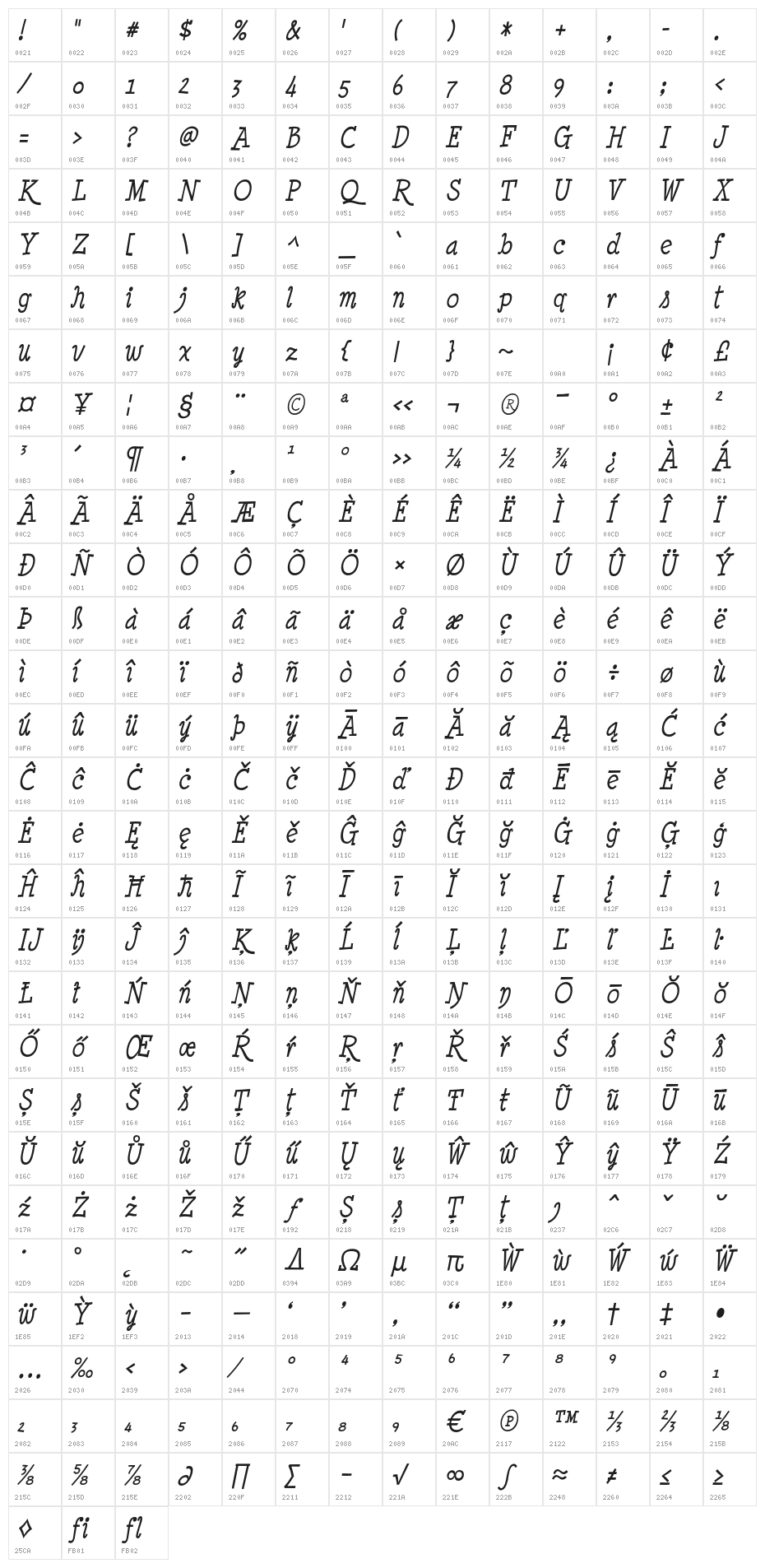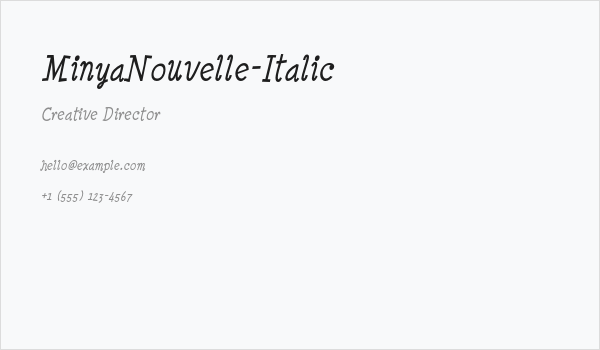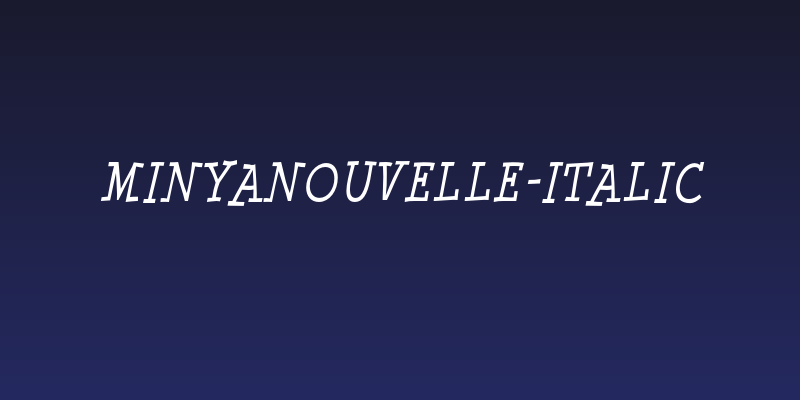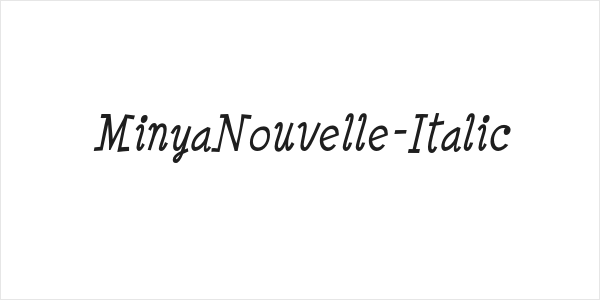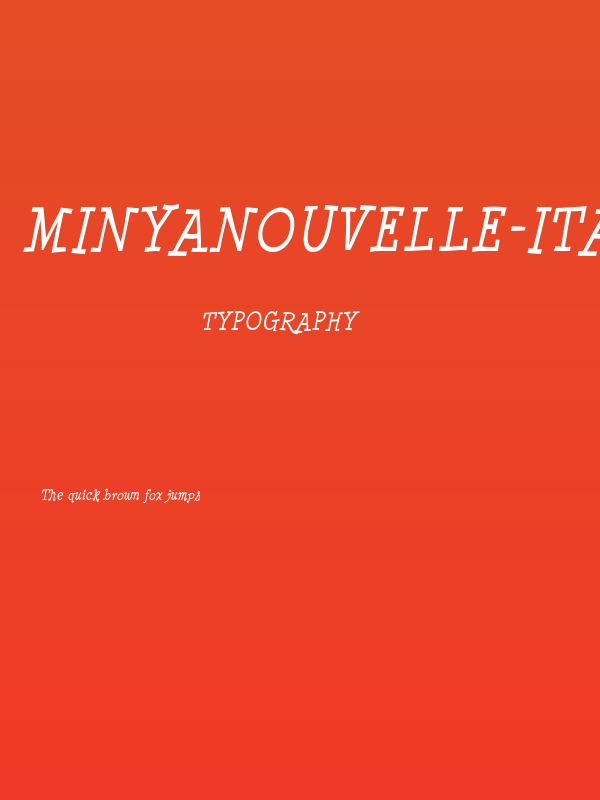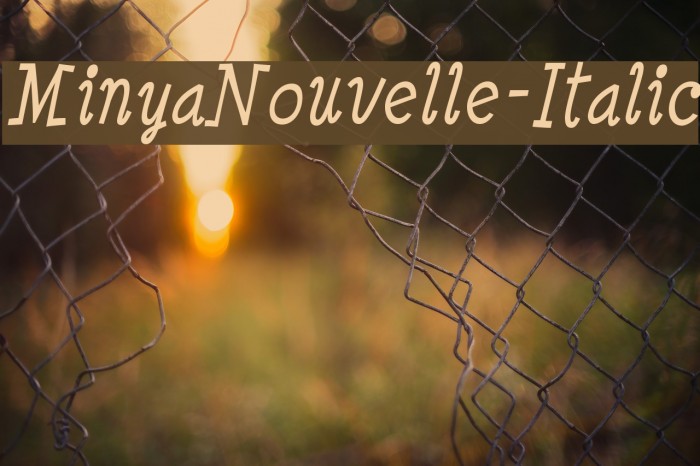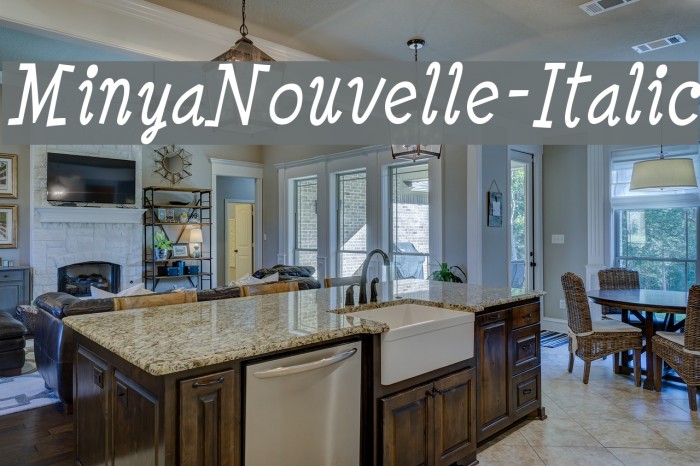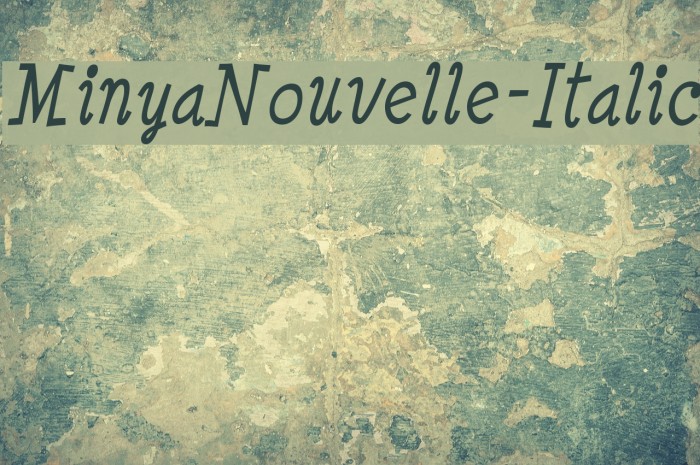
MinyaNouvelle-Italic Font
MinyaNouvelle-Italic Description
This font features a classic italic style with a smooth, flowing appearance. The characters are elegantly slanted, giving a sense of motion and sophistication. The uppercase letters are distinct with slight flourishes, while the lowercase letters maintain a consistent, cursive-like form. The numerals are clear and well-defined, complementing the overall aesthetic. Special characters are designed to match the fluidity of the alphabet, ensuring a cohesive look across all text. The font's design is both timeless and versatile, suitable for a variety of applications.
| Overall Style | Classic |
| Use Case | Logos, Invitations, Decorative text |
| Proposed Projects | Ideal for wedding invitations, elegant branding, book covers, and formal event programs. |